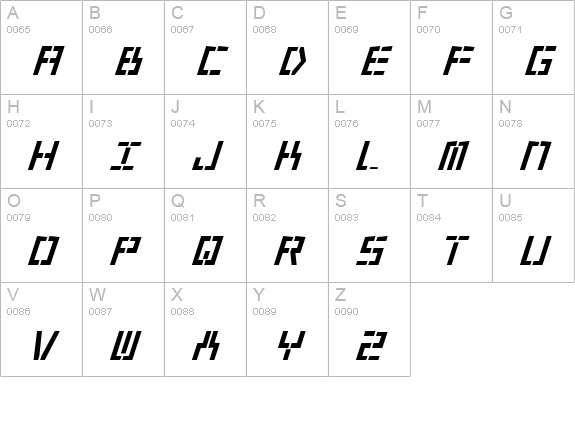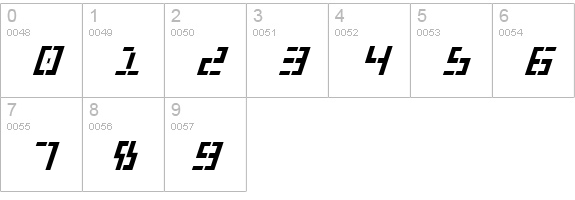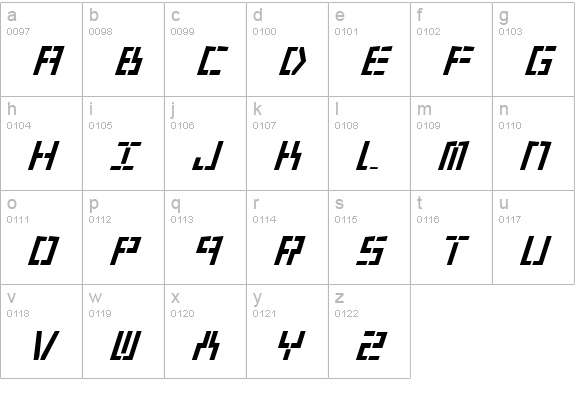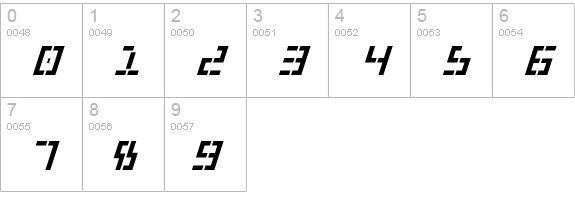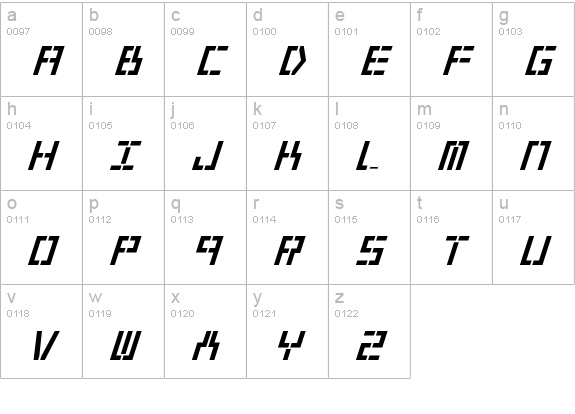
Year 2000 Bold Italic is a strong, high-contrast, italic variant in the Year typeface family \xE2\x80\x94 well suited to headlines, attention-grabbing titles, and strong calls-to-action.
Year 2000 Bold Italic font is a sleek and modern typeface that exudes a sense of confidence and sophistication. Its bold and italic design makes it perfect for creating eye-catching headlines and striking designs. Whether you're working on a poster, logo, or branding project, this font is sure to make a bold statement. The Year 2000 Bold Italic font is not only stylish and versatile but also easy to read, making it a great choice for both print and digital projects. Its clean lines and sharp angles give it a futuristic feel that is perfect for conveying a sense of innovation and forward-thinking. And the best part? Year 2000 Bold Italic font is available for free download at FontsMarket.com. So you can add this stunning font to your collection without breaking the bank. Don't miss out on the opportunity to enhance your designs with this striking typeface - download Year 2000 Bold Italic font today!